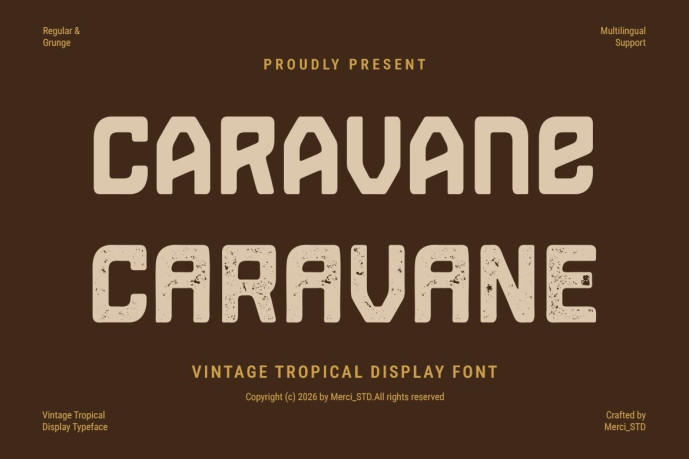
Caravane Display Font
Designer: merci_std
Caravane Display Font is a vintage tropical display font that blends retro vacation aesthetics with clean geometric letterforms. Its textured appearance and warm personality make it ideal for travel branding, tropical promotions, resort graphics, packaging, event posters, and nostalgic summer-themed projects.